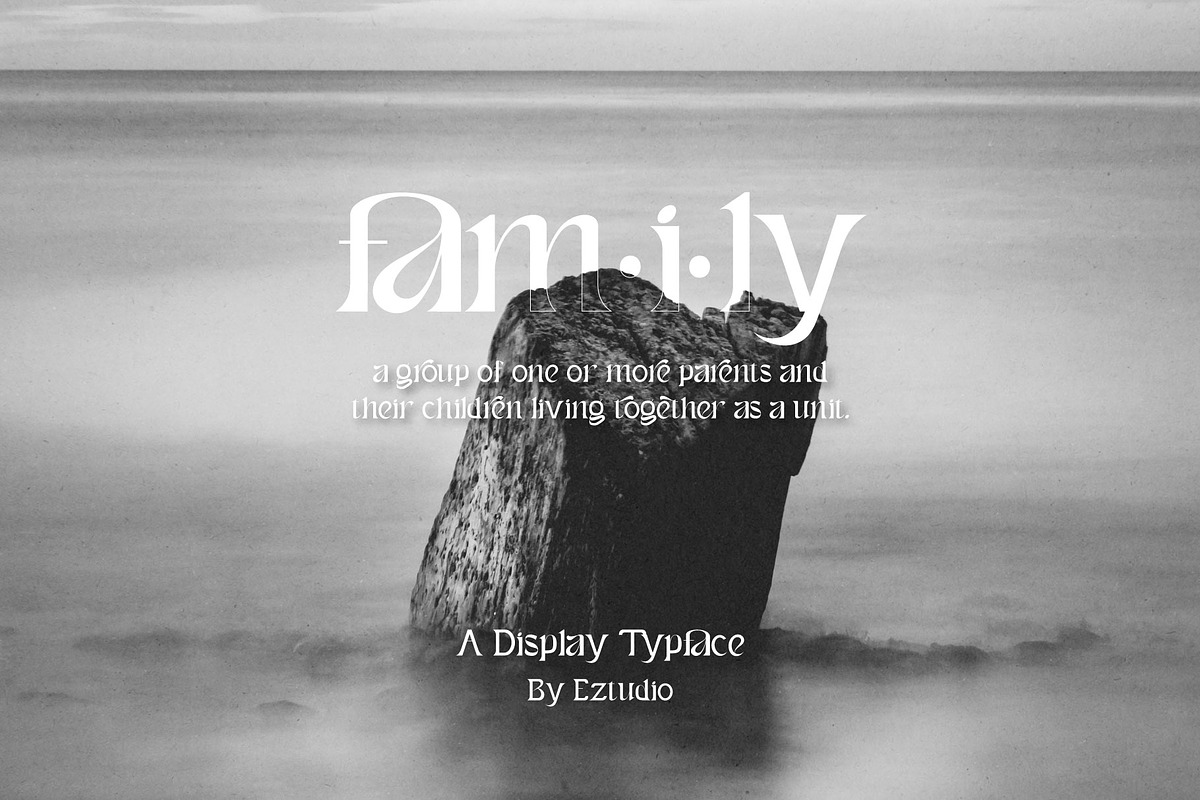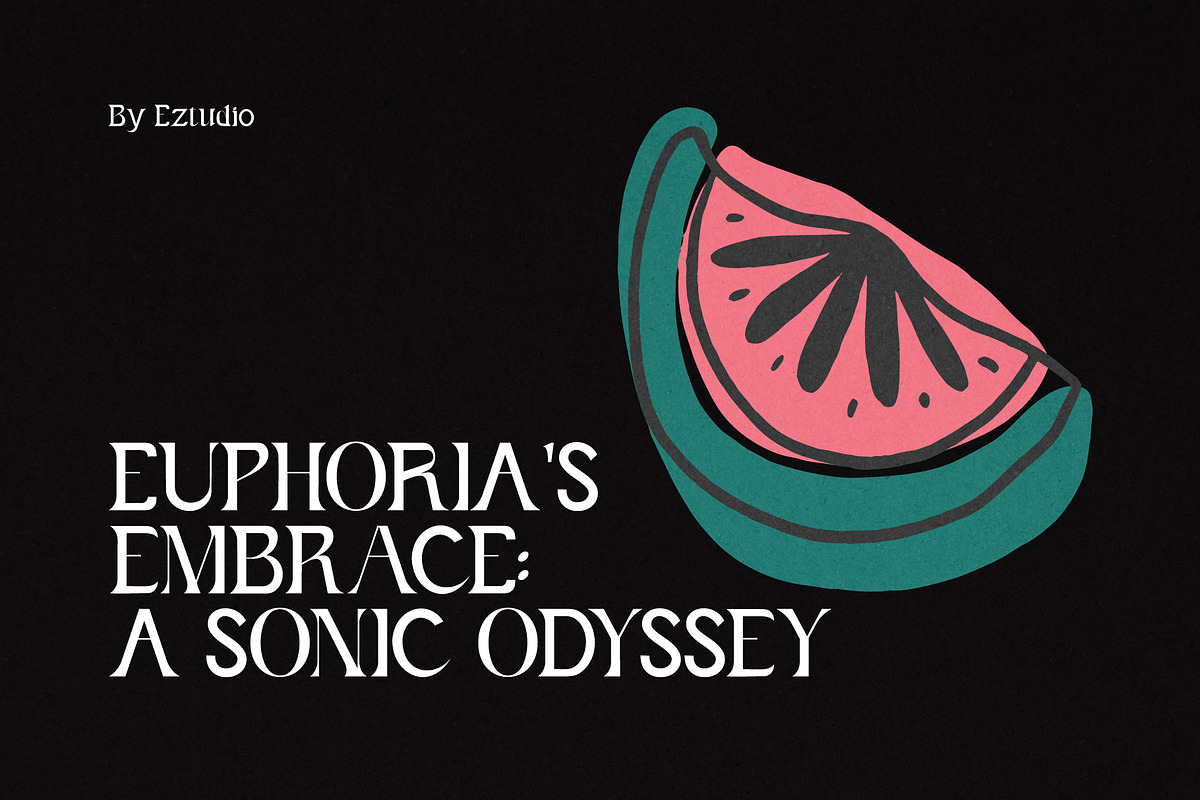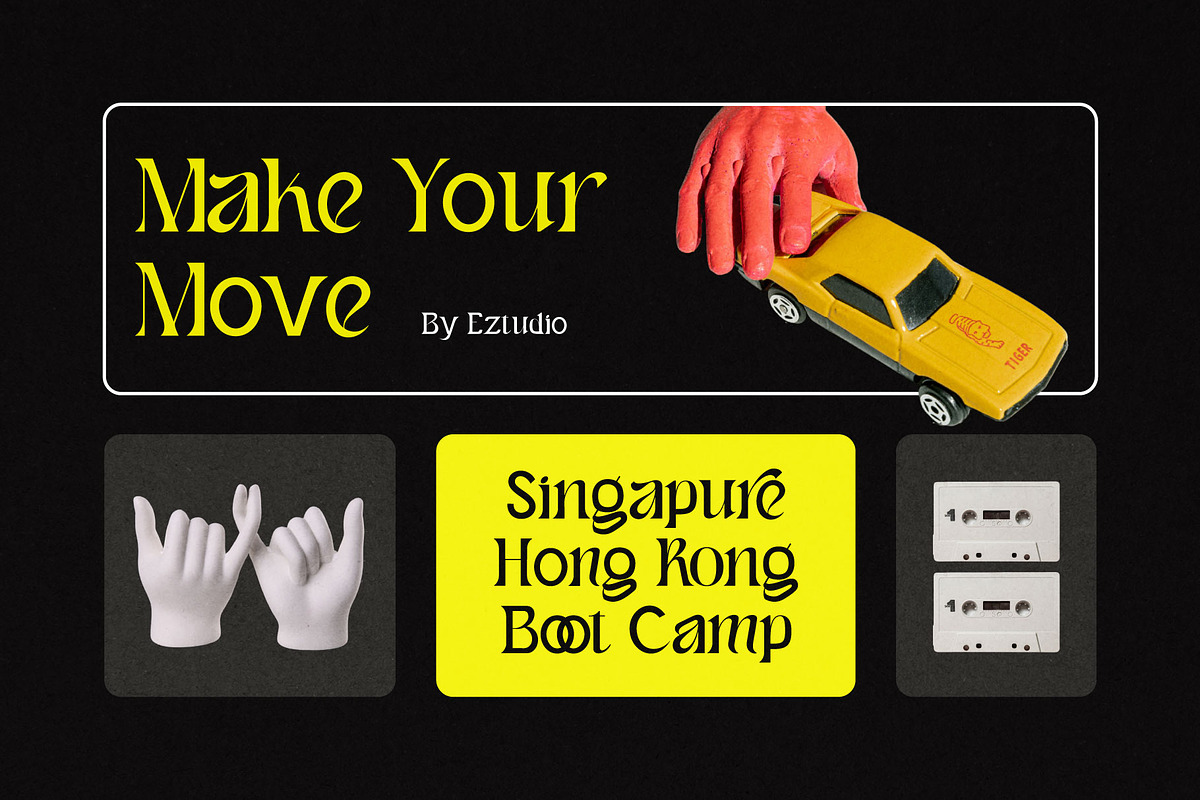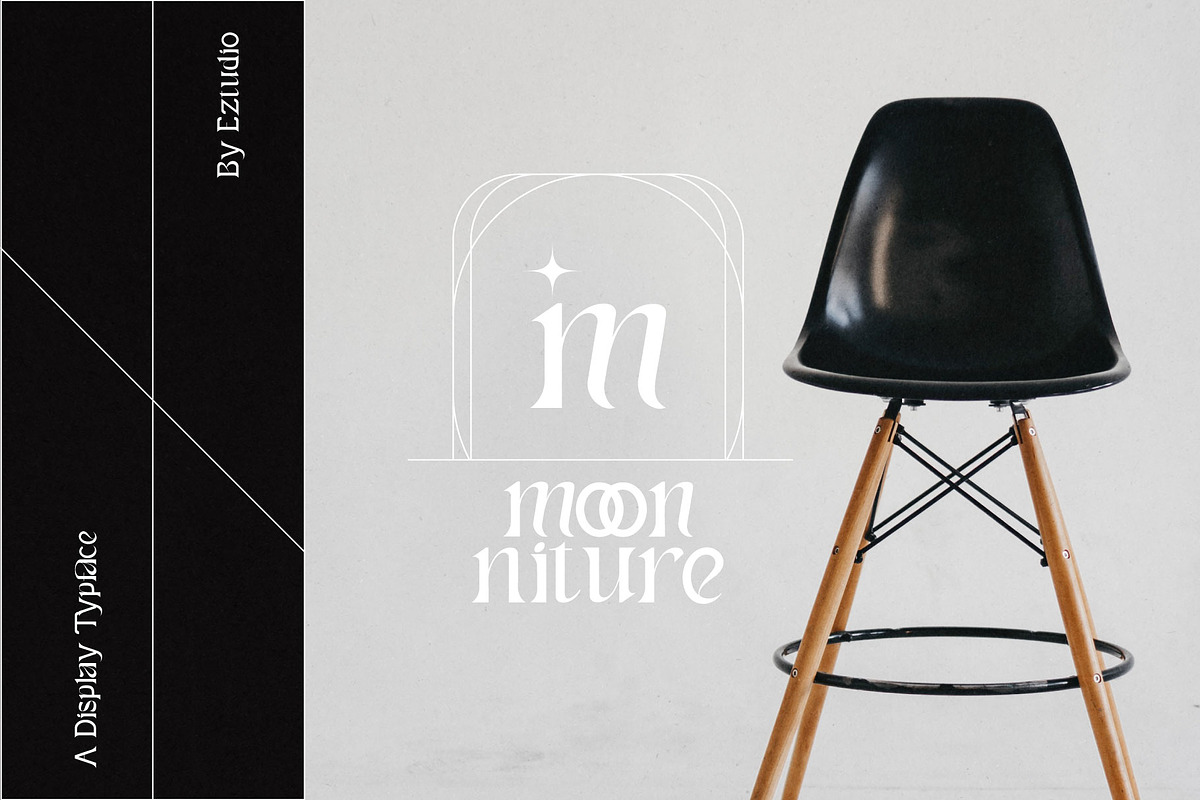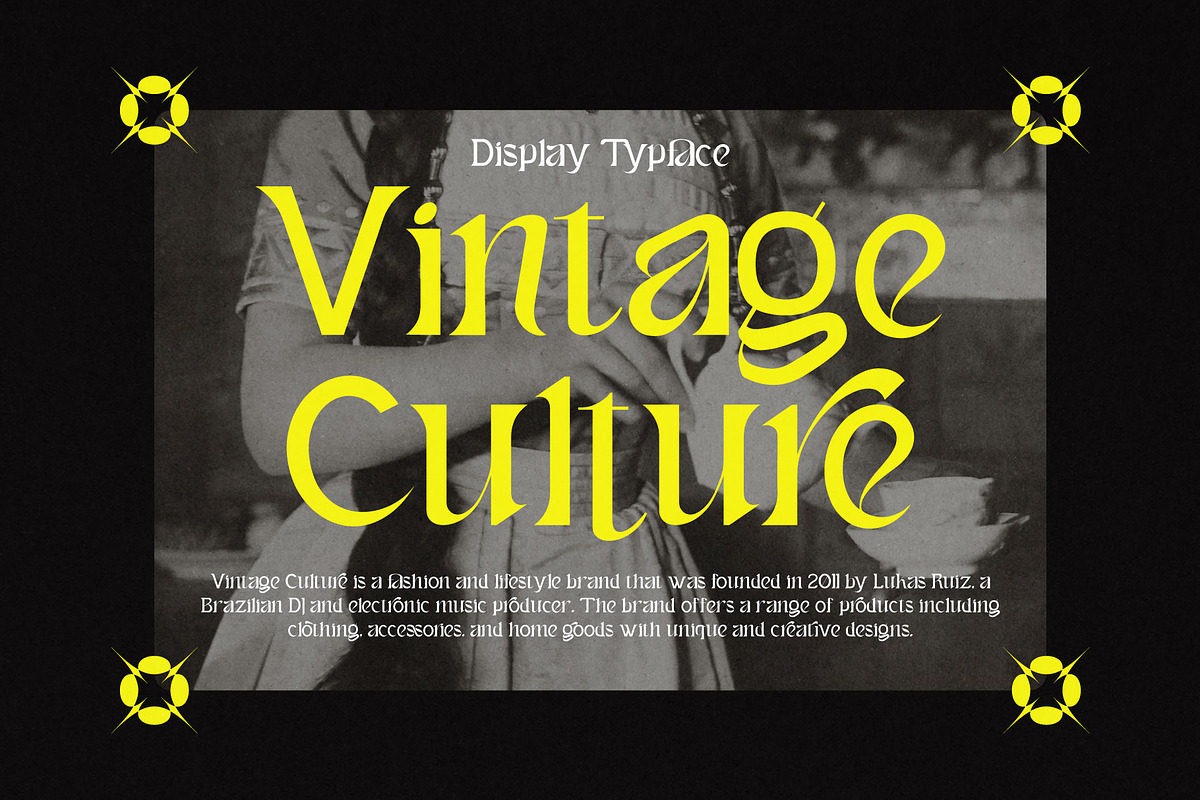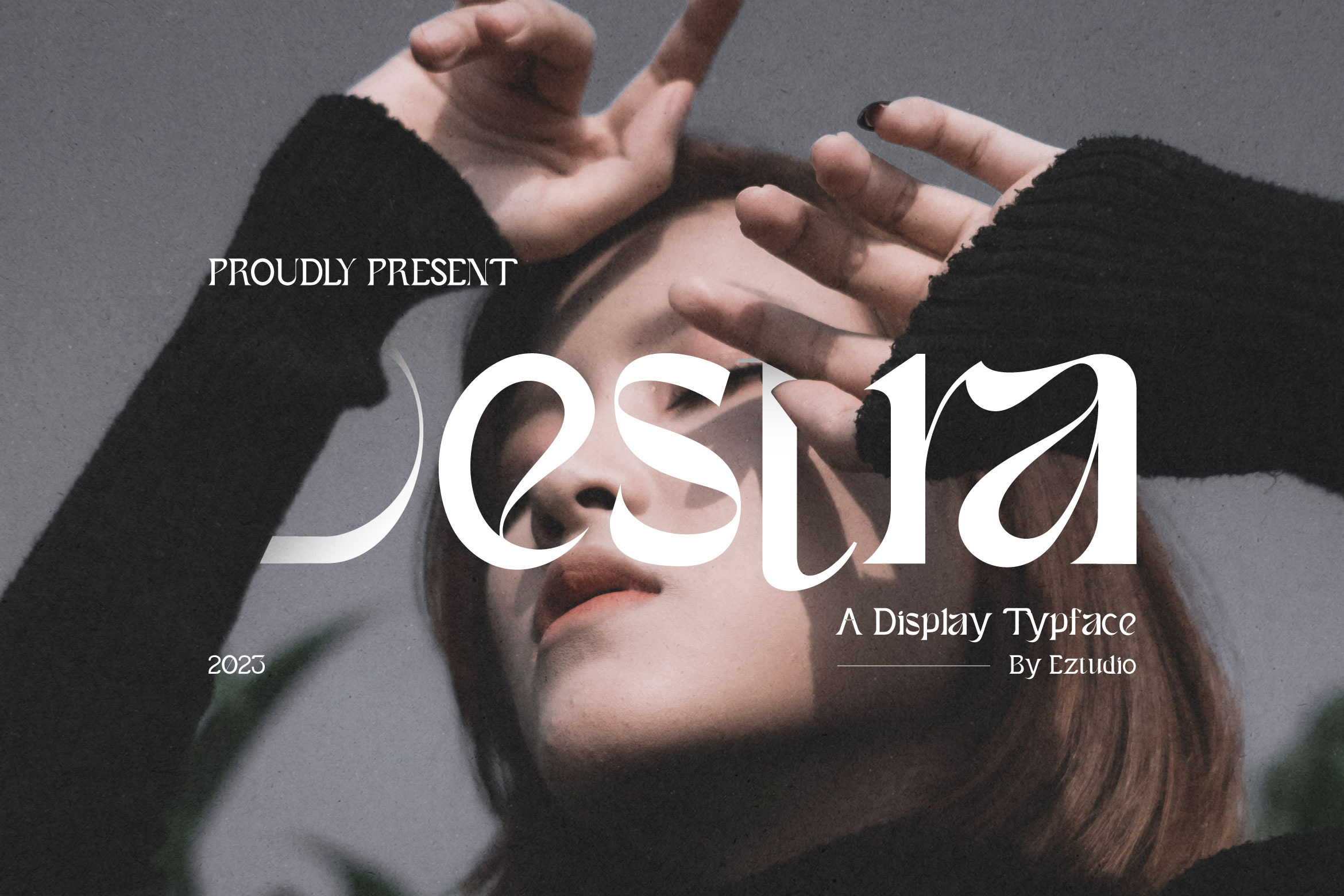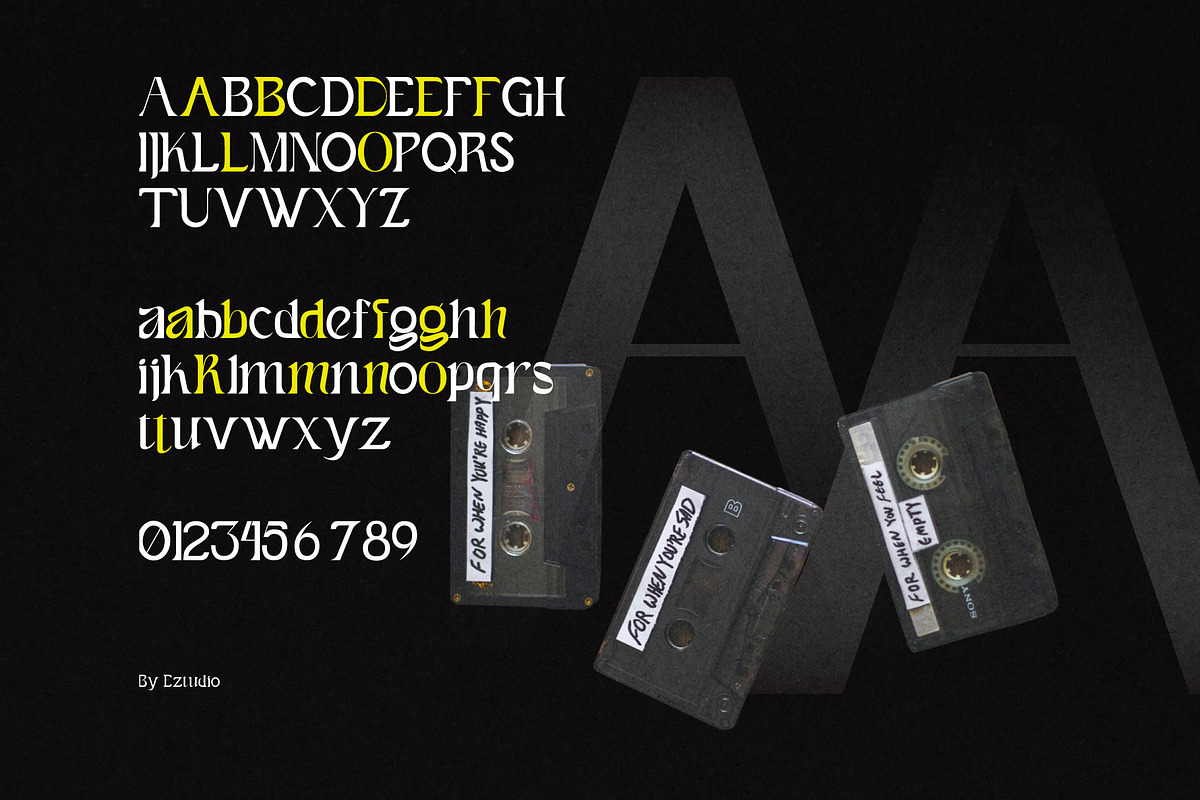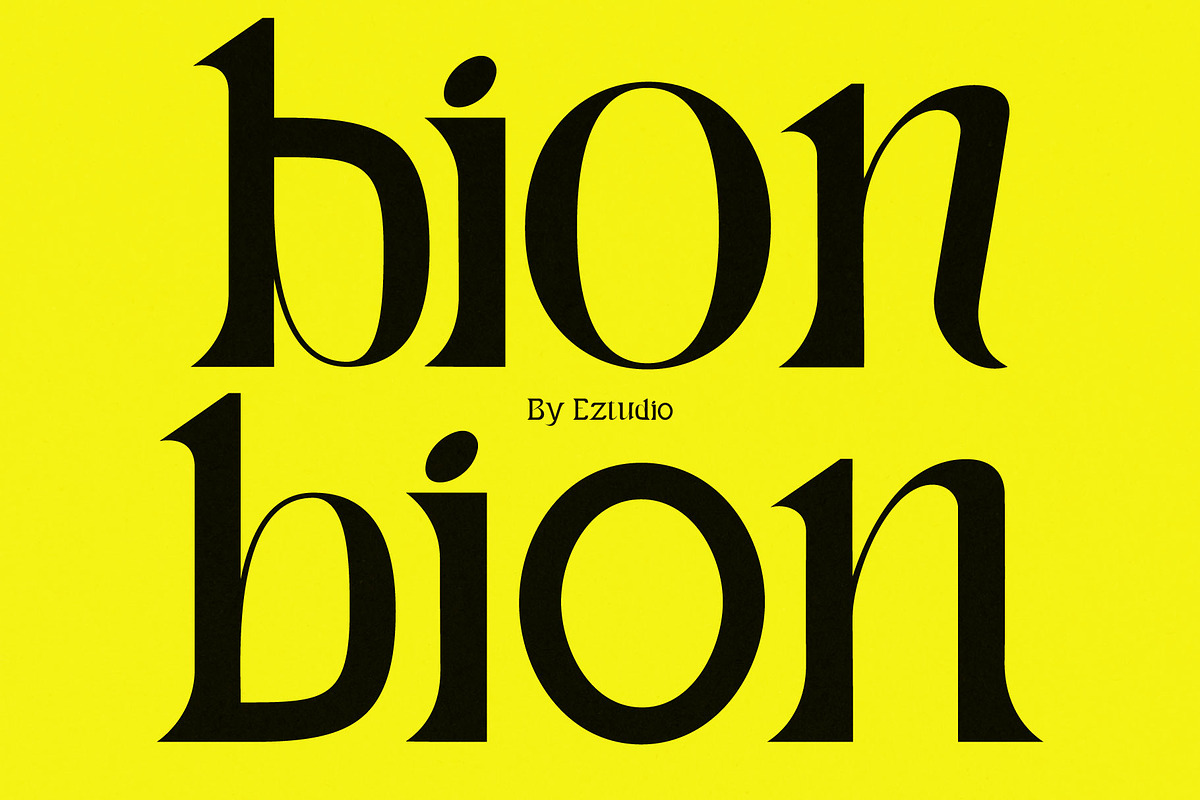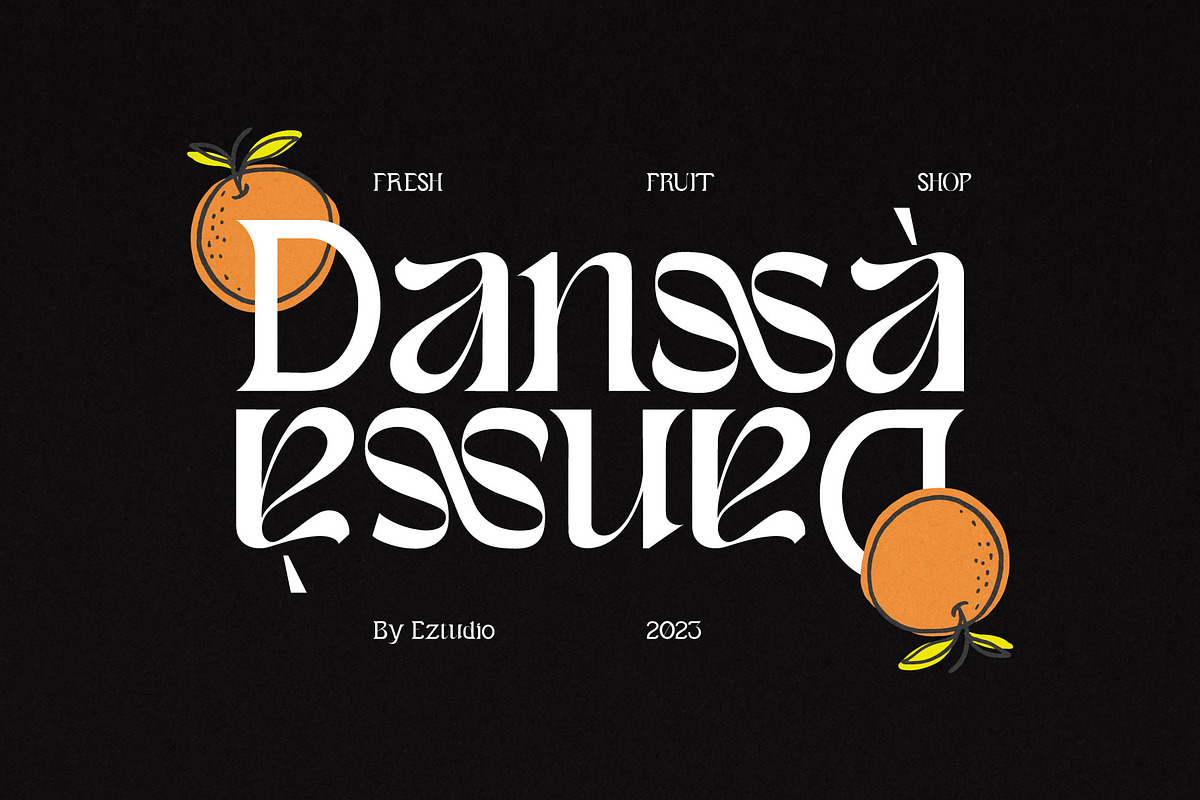
Destra - Display Typeface
Desra is a decorative font that offers a classy and modern look suitable for a wide range of design projects. It can be used for logos, branding, invitations, stationery, wedding designs, social media posts, and much more.
With it's flexible and versatile capabilities, Desra can elevate the luxurious feel of any design project. You don't have to worry about limitations in style as Desra can adapt to the specific needs of your project, ensuring an unforgettable impression on every design. Add Desra to your design collection today for captivating and professional results.